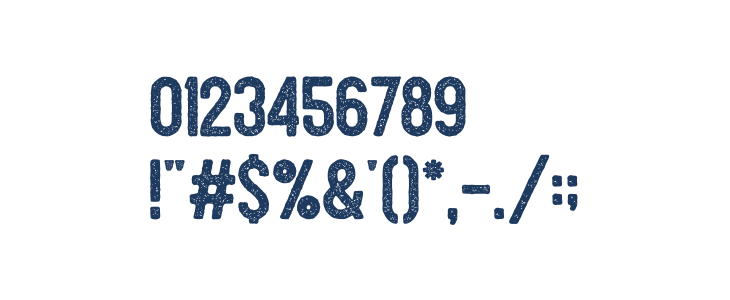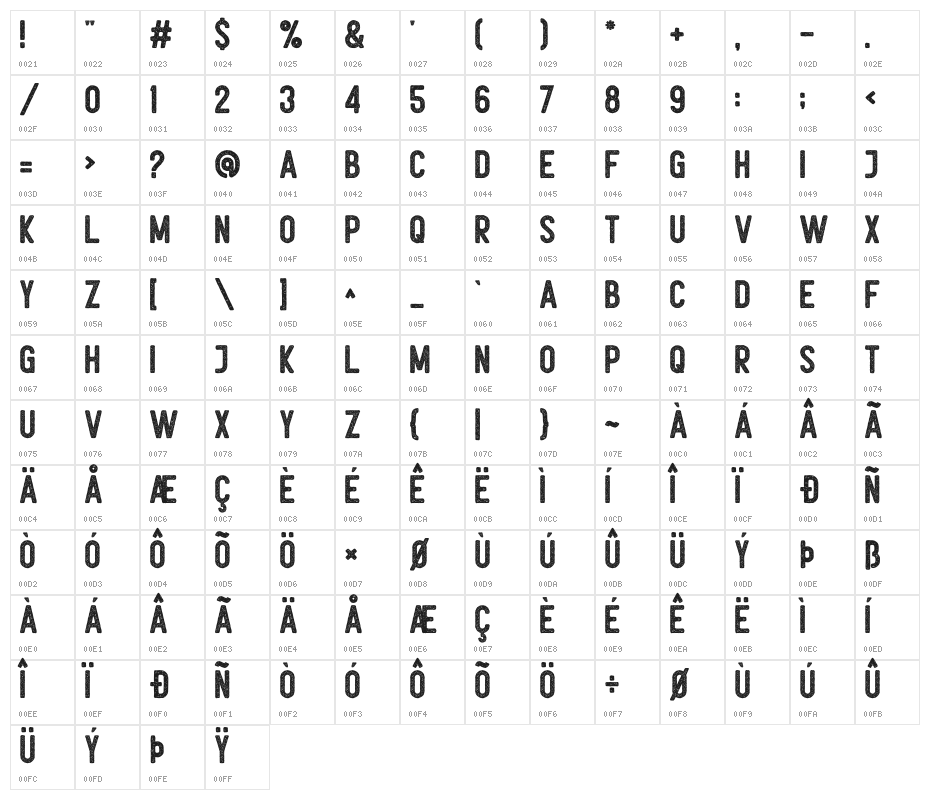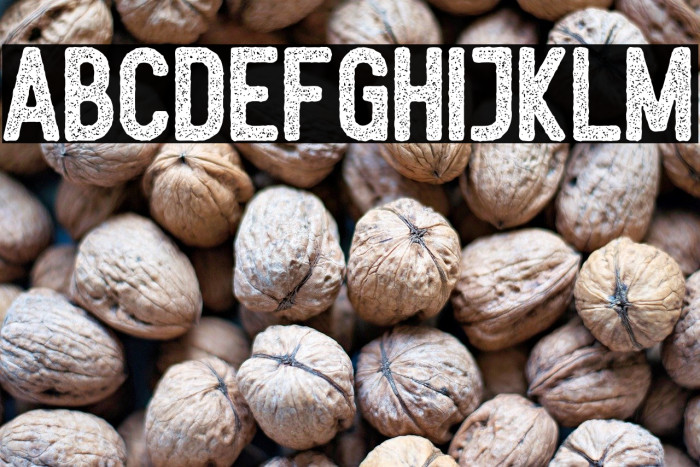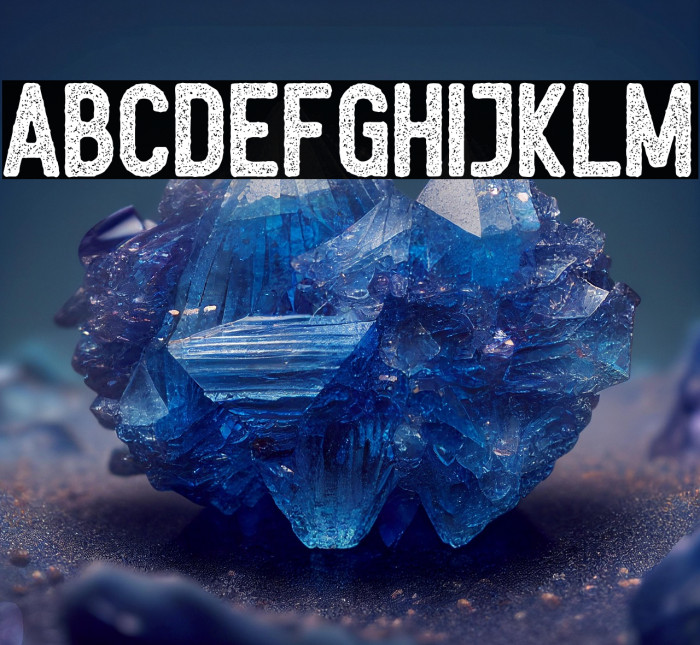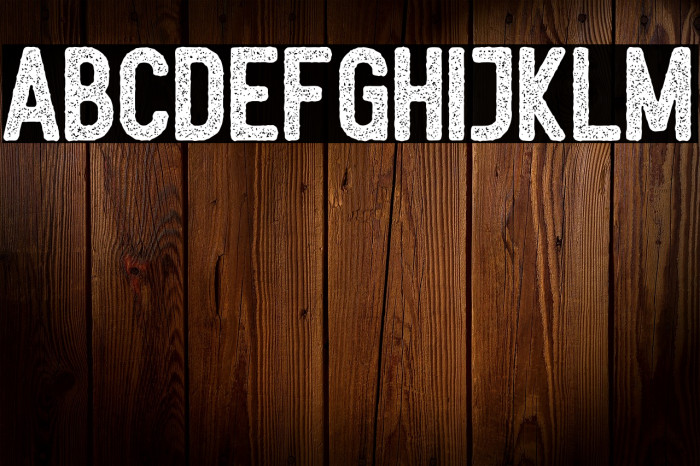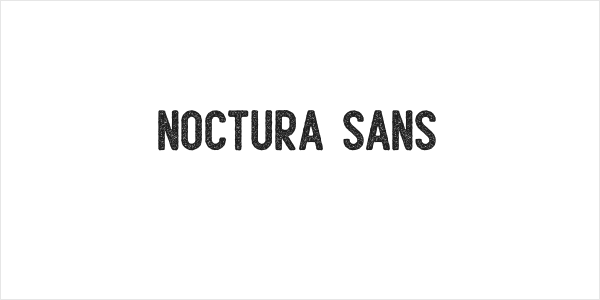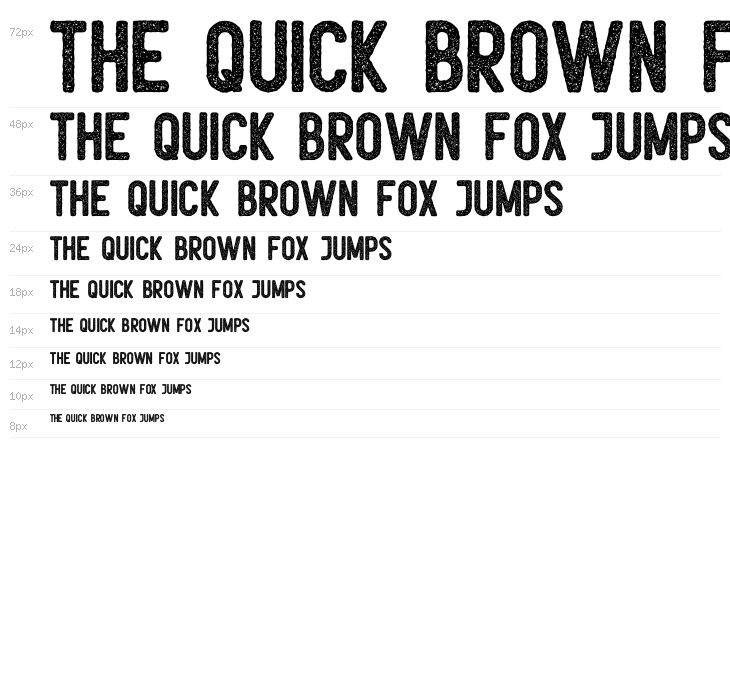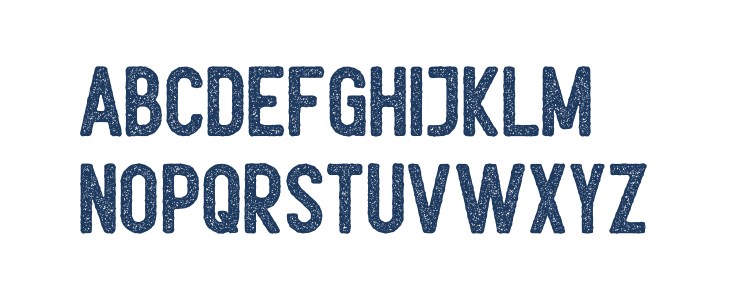
Noctura Sans Font
Noctura Sans Description
This font features a bold, textured style with a distressed, grunge-like appearance. The characters are uppercase and maintain a consistent height, giving a uniform look across the alphabet. The texture adds a unique, tactile quality, making it stand out in designs that require a rugged or vintage feel. The numerals and special characters follow the same design, ensuring cohesion throughout any text. Its boldness and texture make it ideal for impactful headlines or branding that seeks to convey strength and authenticity.
Overall StyleVintage
Proposed ProjectsIdeal for posters, album covers, branding, and any design needing a rugged, vintage feel.